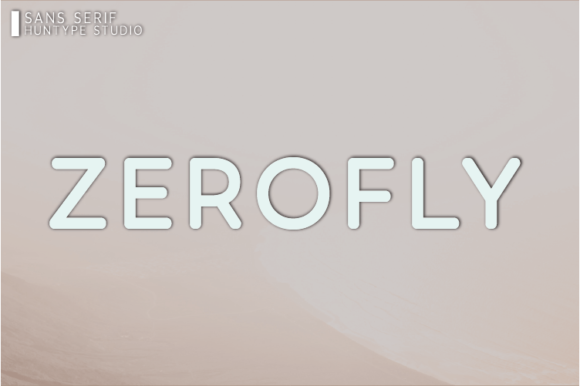
Introduce Zerofly Font, a Sans Serif Masterpiece Transforming Digital Art
In a world clamoring for visual distinction, Zerofly Font emerges as an oasis of contemporary elegance, ready to elevate your creative pursuits to unparalleled heights. This sans serif marvel, meticulously crafted by the visionary artists at Huntype, captivates with its clean lines and smooth curves, flowing effortlessly across the digital landscape.
Unleash the Allure of Modernity with Zerofly
As a modern font, Zerofly embodies the essence of sleek sophistication, carrying an air of understated confidence that complements any digital project. Its crisp structure and uncluttered design lend a touch of minimalism, inviting your audience to delve deeper into your creative vision.
A Versatile Performer in the Digital Arena
Zerofly's versatility knows no bounds. Whether you seek to craft captivating logos that leave a lasting impression, forge unforgettable brand identities that resonate with your audience, or design web headings that command attention, Zerofly stands as your trusted ally. Its adaptability extends to a vast array of digital platforms, ensuring seamless integration into your creative endeavors.
Logos That Speak Volumes
In the realm of logo design, Zerofly shines as a beacon of simplicity and effectiveness. Its clean lines and legible structure ensure that your brand's message is conveyed with unwavering clarity. Let Zerofly be the foundation upon which you build a visual identity that resonates with your audience, leaving an indelible mark on their minds.
Branding That Connects
Immerse yourself in the world of branding and discover the transformative power of Zerofly. This font's inherent versatility allows it to effortlessly adapt to diverse industries and markets. Whether you navigate the dynamic world of fashion, technology, or art, Zerofly seamlessly blends with your unique brand identity, creating a cohesive and compelling narrative that captivates your audience.
Web Headings That Command Attention
Craft web headings that demand attention and leave a lasting impression with Zerofly. Its crisp structure and elegant curves guide readers' eyes effortlessly through your content, ensuring that your message is received with the attention it deserves. Zerofly's ability to convey authority and clarity makes it an ideal choice for headlines, titles, and call-to-action buttons, inviting visitors to engage with your content and explore the depths of your digital offerings.
A Symphony of Visual Aesthetics
Indulge in the visual symphony orchestrated by Zerofly's meticulously designed characters. Each letterform is a testament to the font's inherent beauty, crafted with precision to deliver a visually stunning experience. Bask in the seamless flow of words as they dance across the screen, captivating your audience with their grace and elegance.